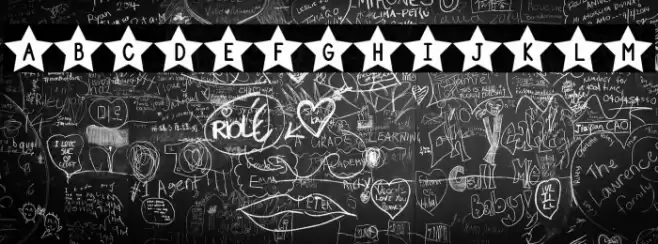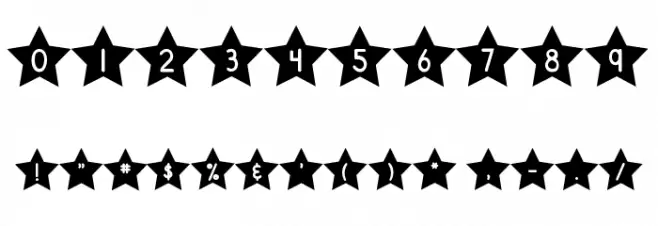
DJB Shape Up Stars Font
DJB Shape Up Stars Description
This font features characters enclosed within star shapes, creating a playful and decorative appearance. Each letter and number is centered inside a bold, five-pointed star, giving the text a unique and eye-catching look. The style is consistent across uppercase, lowercase, numbers, and special characters, maintaining a uniformity that enhances its decorative appeal. The boldness of the stars contrasts with the simplicity of the characters, making it suitable for projects that require a fun and whimsical touch. The spacing between the stars is tight, ensuring a compact and cohesive visual flow.
A decorative font with characters inside bold star shapes from Decorative fonts.
- Proposed Projects: Ideal for children's party invitations, playful branding, or decorative posters.
- Character Spacing: Tight